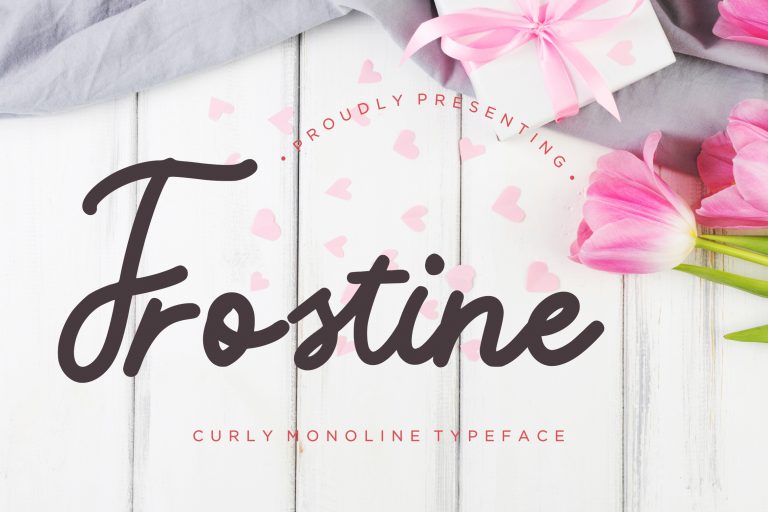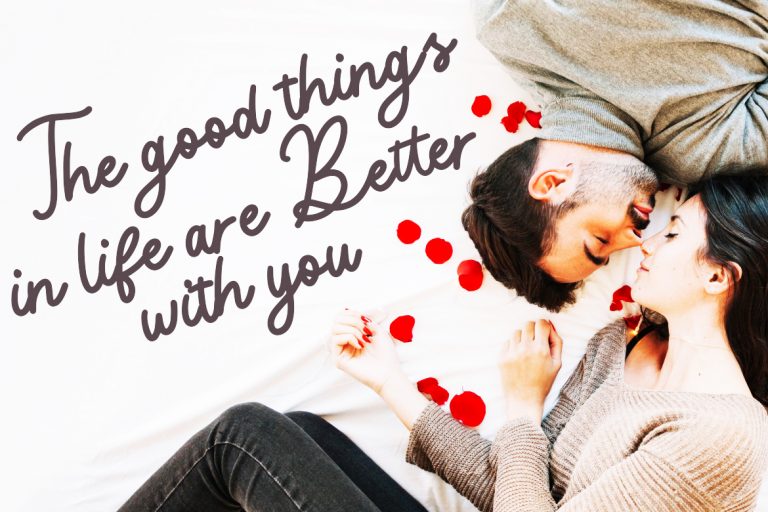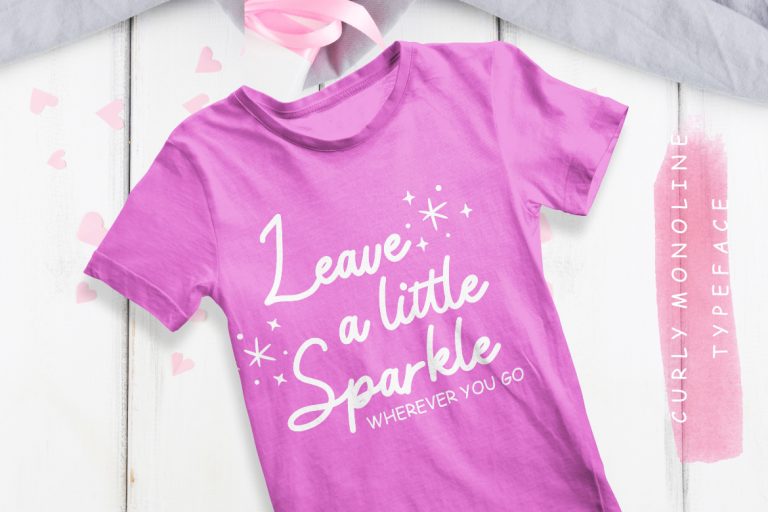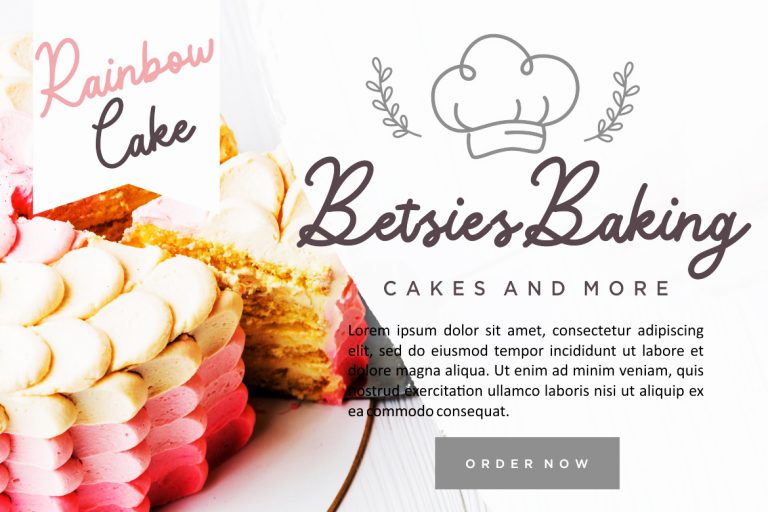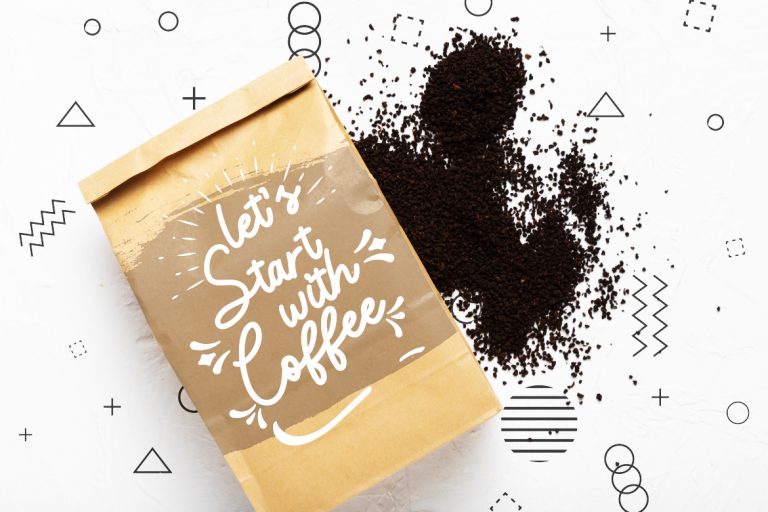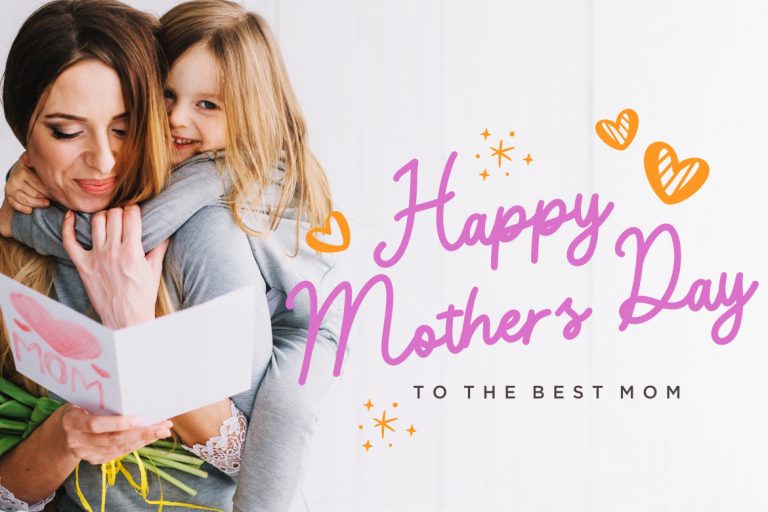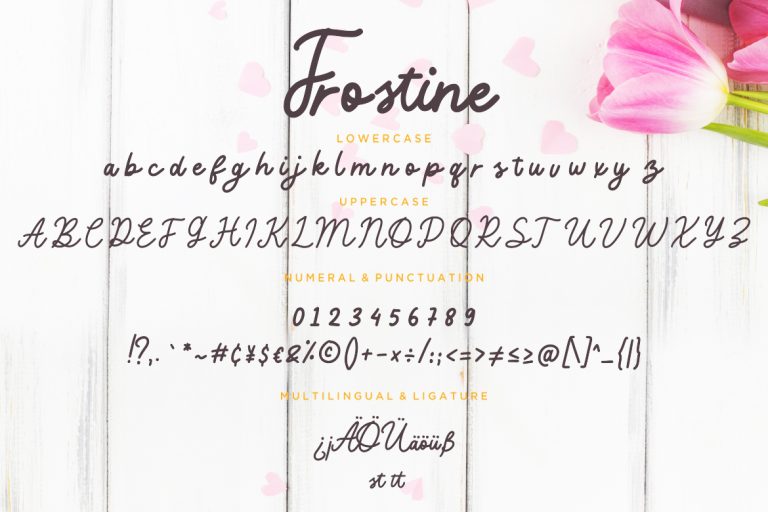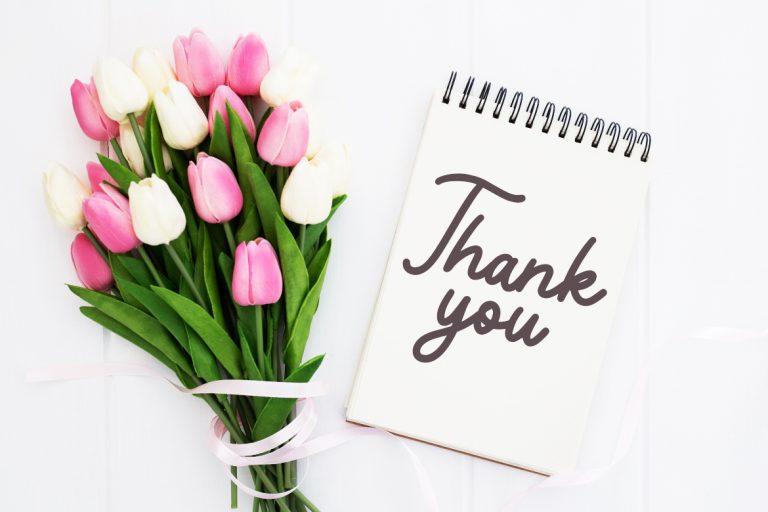
FrostineĀ is curly fun monoline font with natural handwritten looks amazing for your latest project.
Frostine is perfect for branding projects, logo, wedding designs, social media posts, advertisements, product packaging, product designs, label, photography, watermark, invitation, stationery and any projects that need handwriting taste.
• Fonts includeĀ multilingual supportĀ for; ä ƶ ü Ƅ Ɩ Ü ß Āæ Ā”
Frostine Monoline Typeface